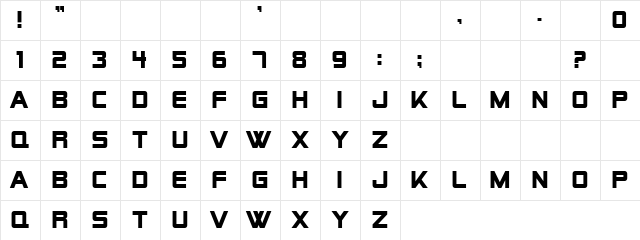
Standing Harry Regular
Design Context for Standing Harry Typeface
Standing Harry offers clean, dependable letterforms without strong stylistic allegiance, making it a practical choice for designers who need flexibility.
Pro Tip: Use Standing Harry in both headline and body roles to test its range before committing to a single application.